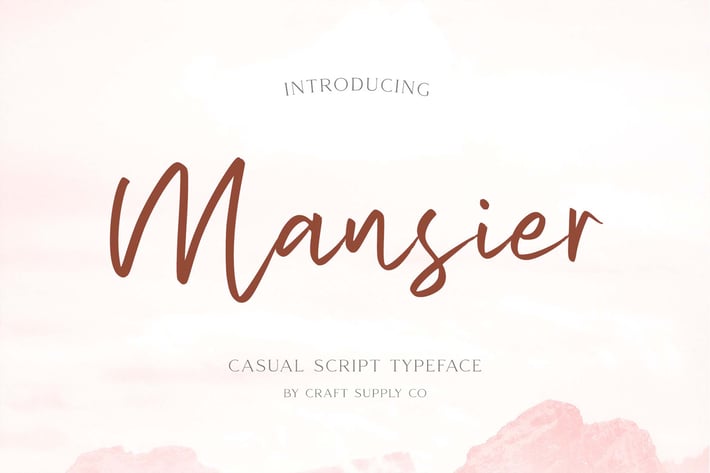
Mansier - Casual Script Typeface
Mansier - Casual Script Typeface is a modern script font with feminine touch. Mansier - Casual Script Typeface will work perfectly for fashion, e-commerce brands, trend blogs, wedding boutiques or any business that wants to appear upscale and chic.
Mansier - Casual Script Typeface also Suitable for Logo, greeting cards, quotes, posters, branding, name card, stationary, design title, blog header, art quote, typography, art, modern envelope lettering or book design, happening style like handdrawn design or watercolor design theme, craft design, any DIY project, book title, or any purpose to make your art/design project look pretty and trendy.
Standard Ligatures